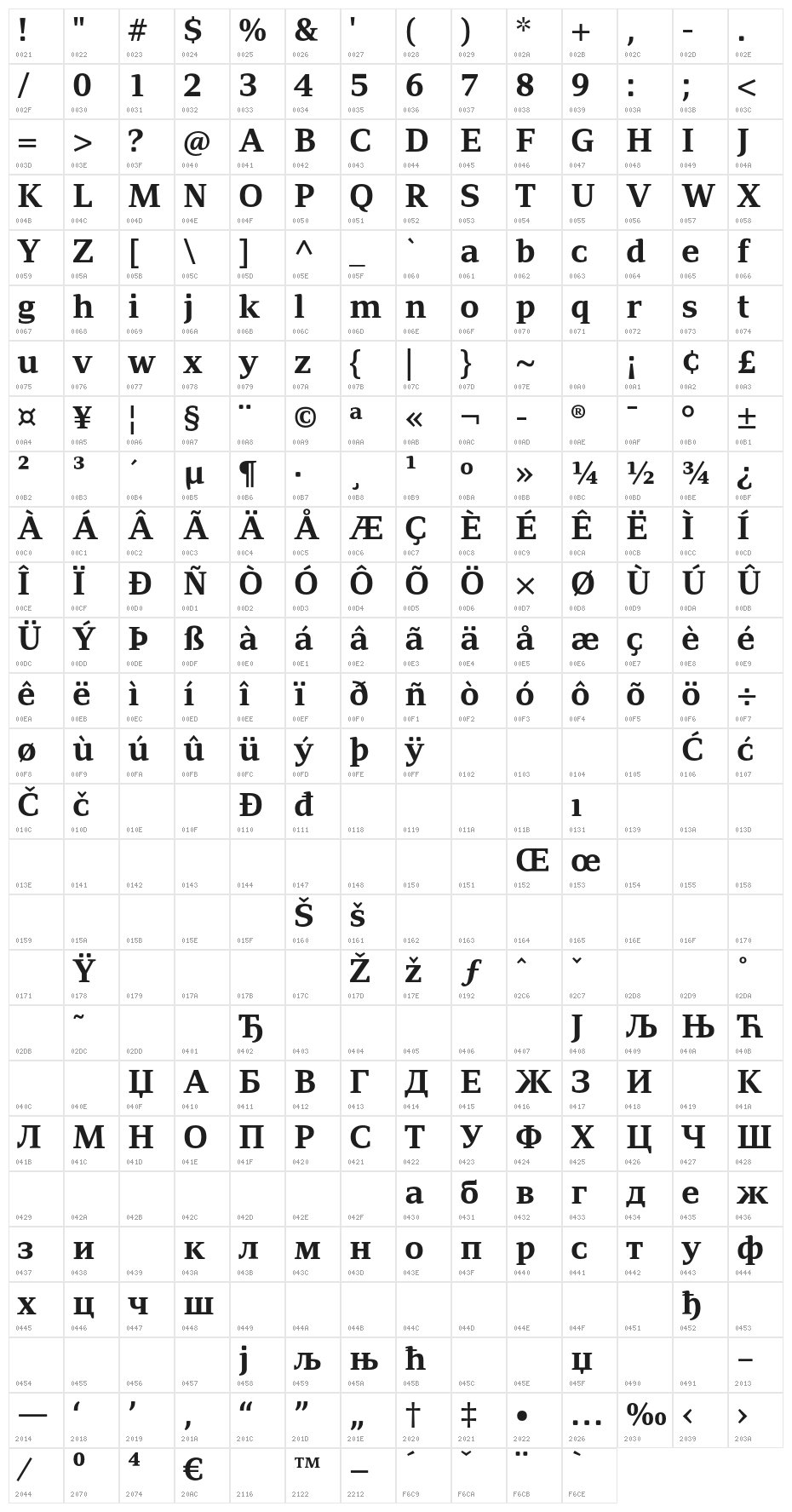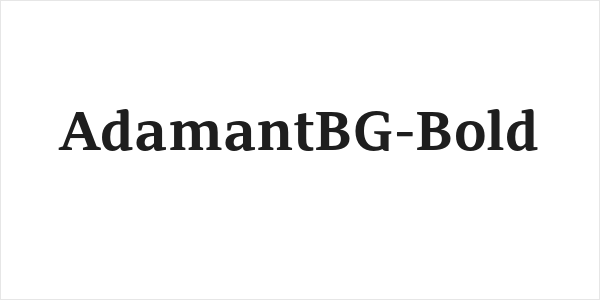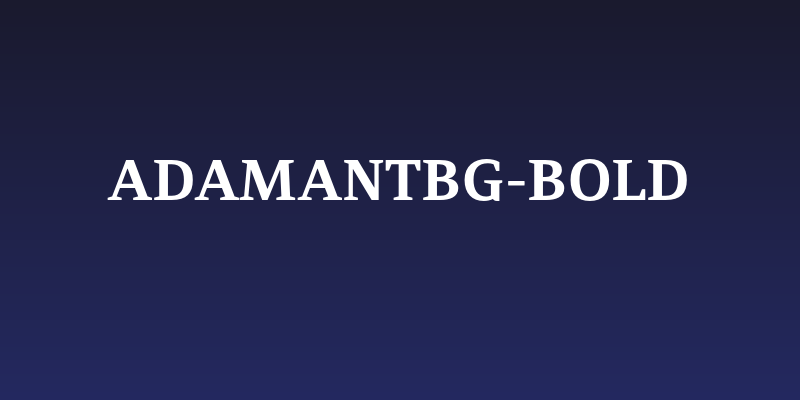
AdamantBG-Bold Font
AdamantBG-Bold Description
This font features a bold and confident serif style, characterized by strong, thick strokes and sharp, angular serifs. The uppercase letters are robust and commanding, while the lowercase letters maintain a consistent weight, providing a harmonious balance. The numerals are clear and legible, with a traditional design that complements the overall classic aesthetic. Special characters are well-defined, enhancing the font's versatility. The font's structure is solid, making it suitable for impactful headlines and titles.
| Proposed Projects | This font is perfect for projects that require a strong and authoritative presence, such as book covers, editorial headlines, branding materials, and signage. |